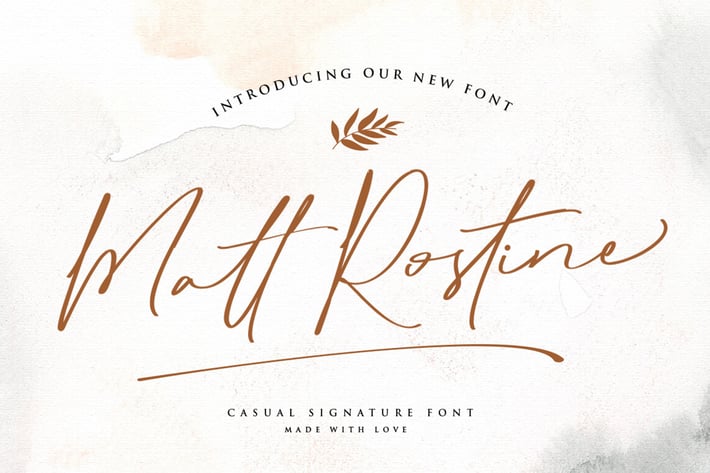
Matt Rostine | Signature Font
Matt Rostine is a beautiful handwritten font, created with the help of a unique brush pen. Fall in love with its incredibly versatile style and use it to create gorgeous wedding invitations, beautiful stationary art, eye-catching social media posts, and much more!
Font Features :
Uppercase + Lowercase Letters
Numbers + Punctuation
Ligature Feature
OpenType features